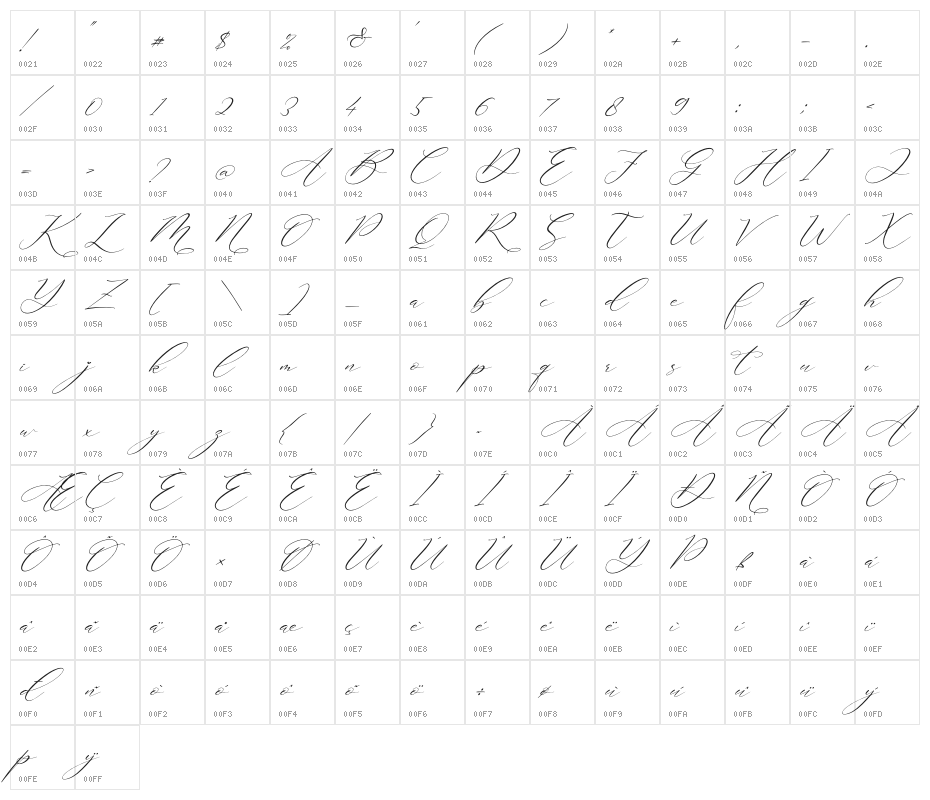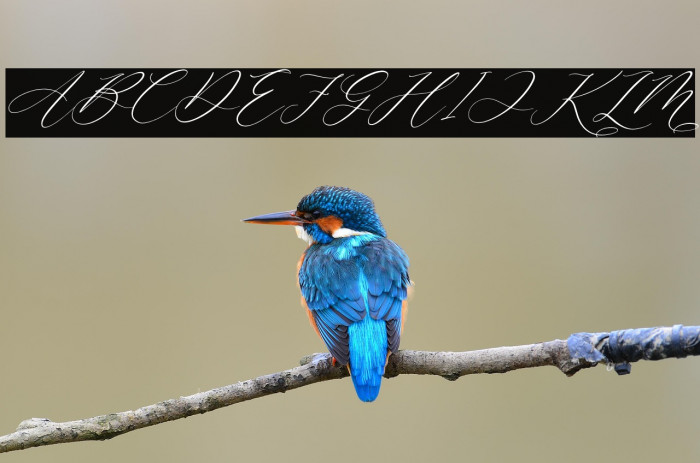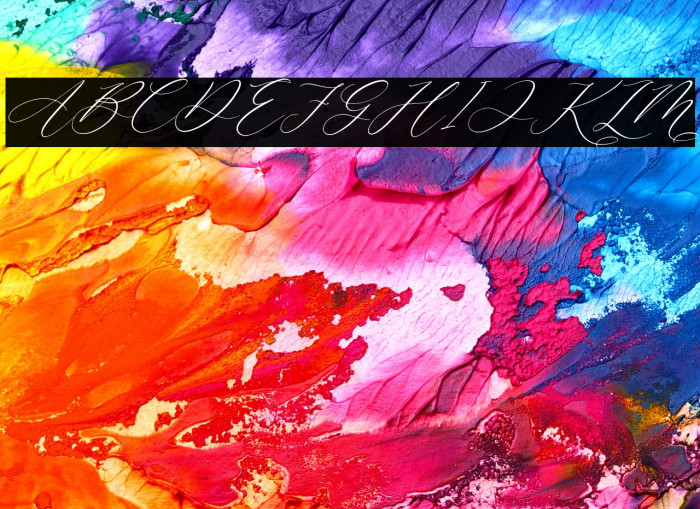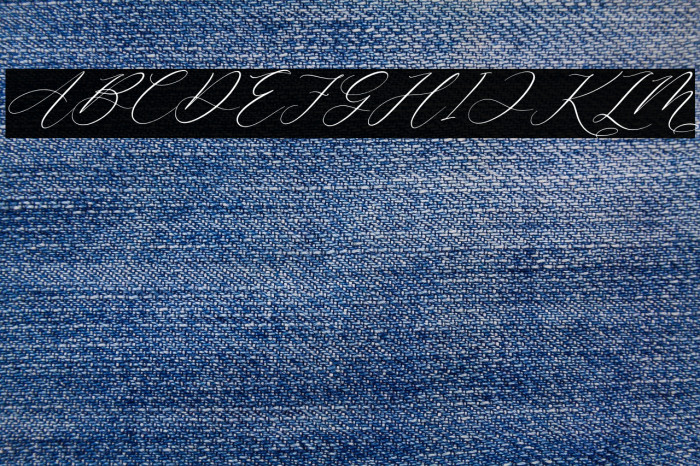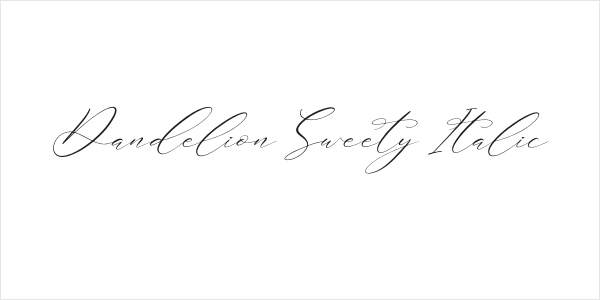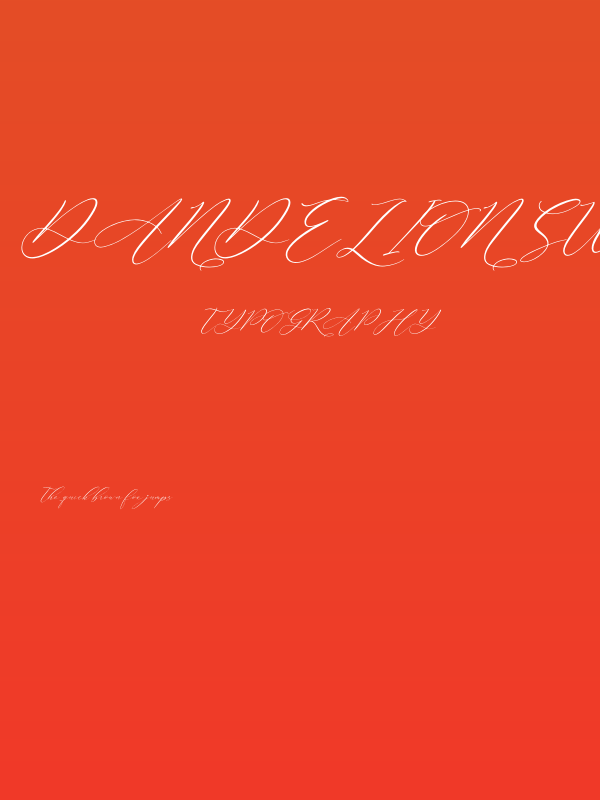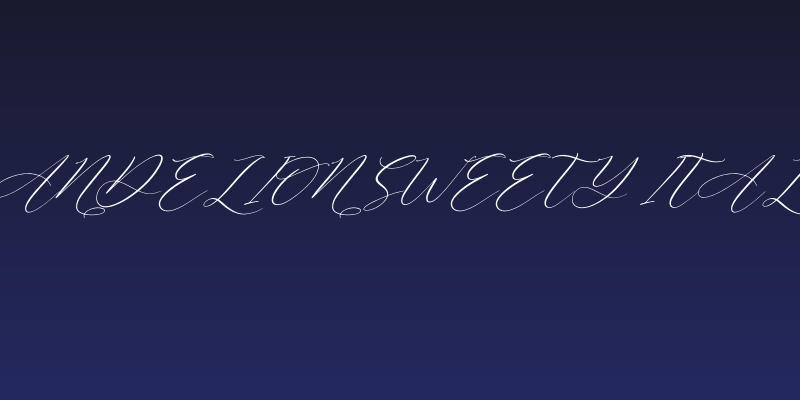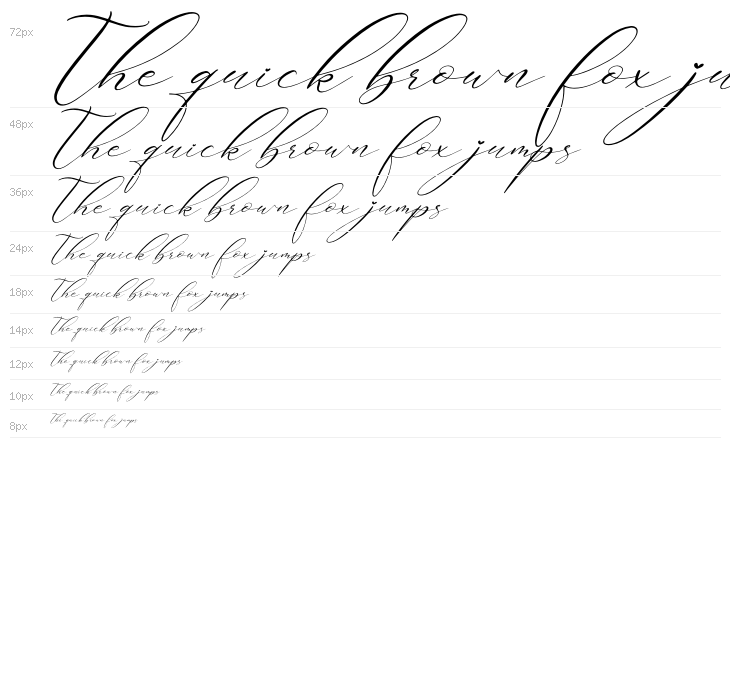
Dandelion Sweety Italic Font
Dandelion Sweety Italic Description
This elegant script font features a flowing, cursive style with delicate, sweeping strokes that convey a sense of grace and sophistication. The characters are intricately designed with high contrast between thick and thin lines, creating a dynamic and eye-catching appearance. The uppercase letters are particularly ornate, with flourishes that add a touch of luxury and refinement. The lowercase letters maintain a consistent flow, enhancing readability while still retaining an artistic flair. The numerals and special characters are crafted with the same attention to detail, ensuring a cohesive look across all text elements.
| Overall Style | Elegant, Decorative |
| Use Case | Headlines, Invitations, Branding |
| Proposed Projects | Ideal for wedding invitations, elegant branding, luxury product packaging, and decorative headings. |